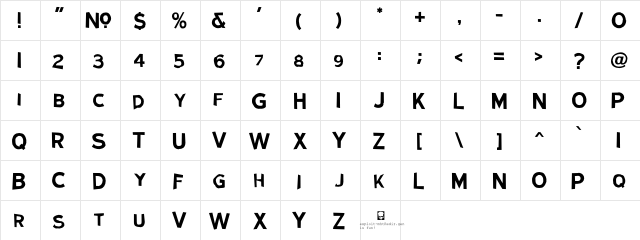
LHF Garner REGULAR Regular Font Preview
LHF Garner REGULAR Regular
LHF Garner REGULAR Regular Font Details
| Foundry | Duncan Wilkie for Letterhead Fonts |
| Designer | Duncan Wilkie for Letterhead Fonts |
Design Context for LHF Garner REGULAR Typeface
LHF Garner REGULAR takes a measured approach to typography — its balanced proportions and neutral character make it a reliable workhorse for both digital and print work.